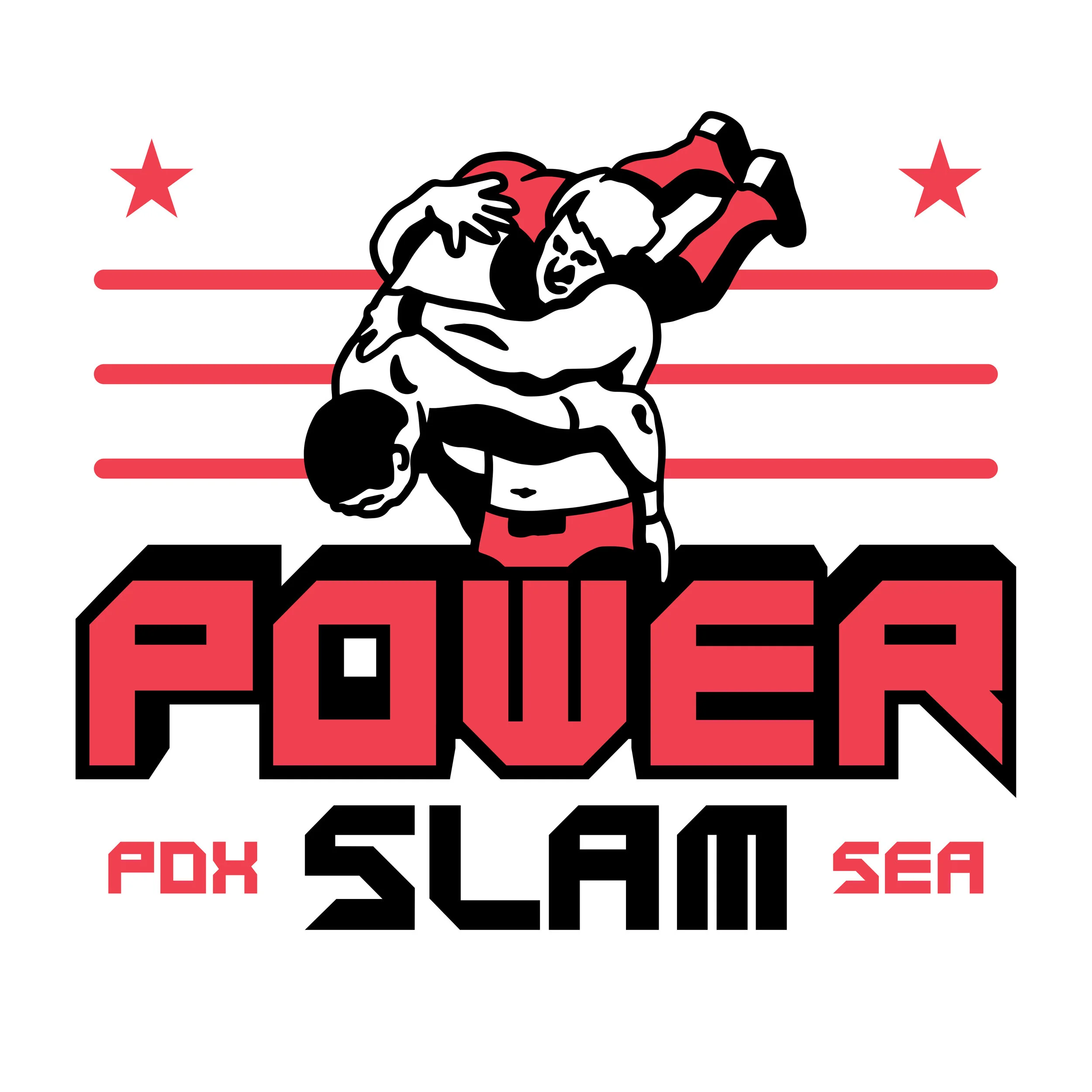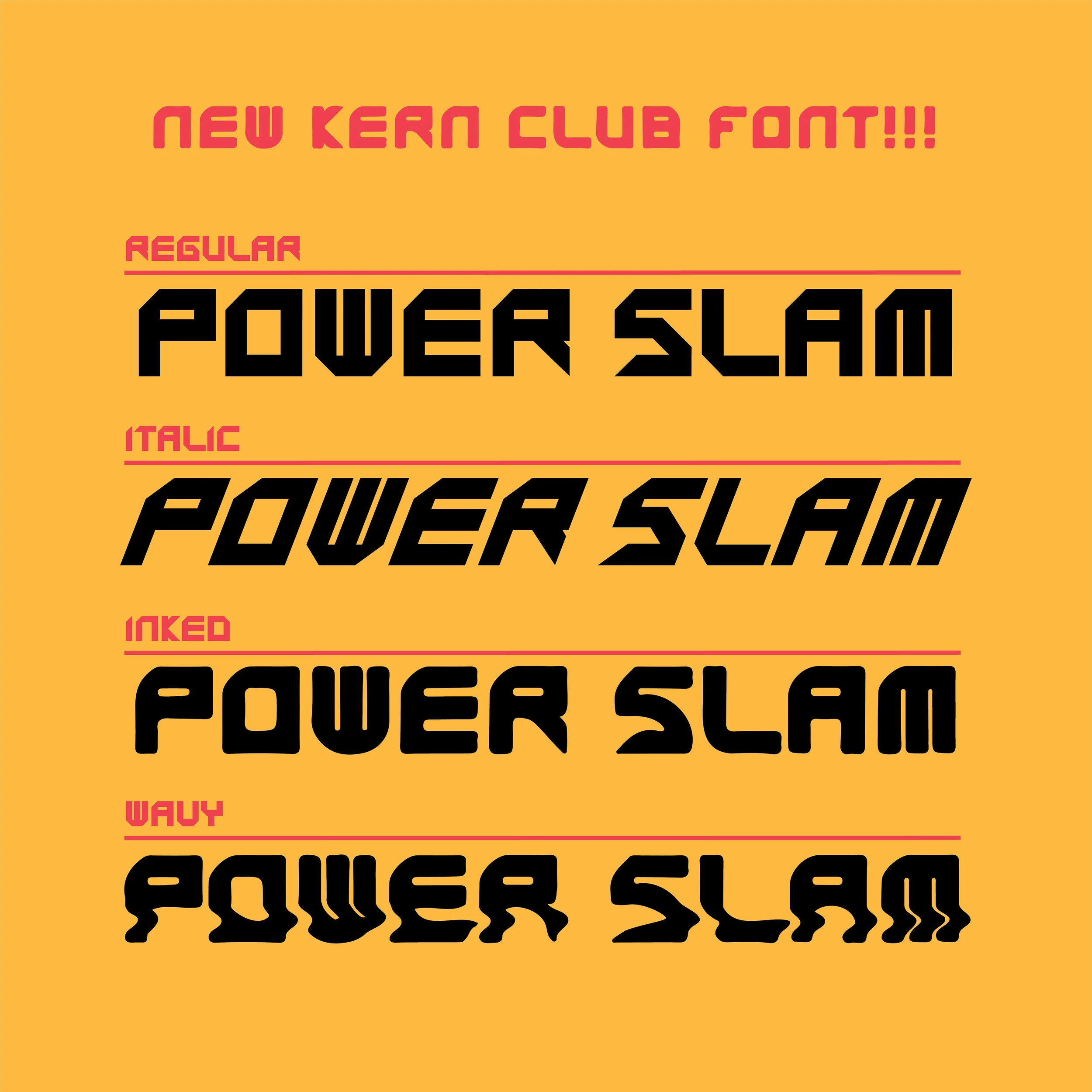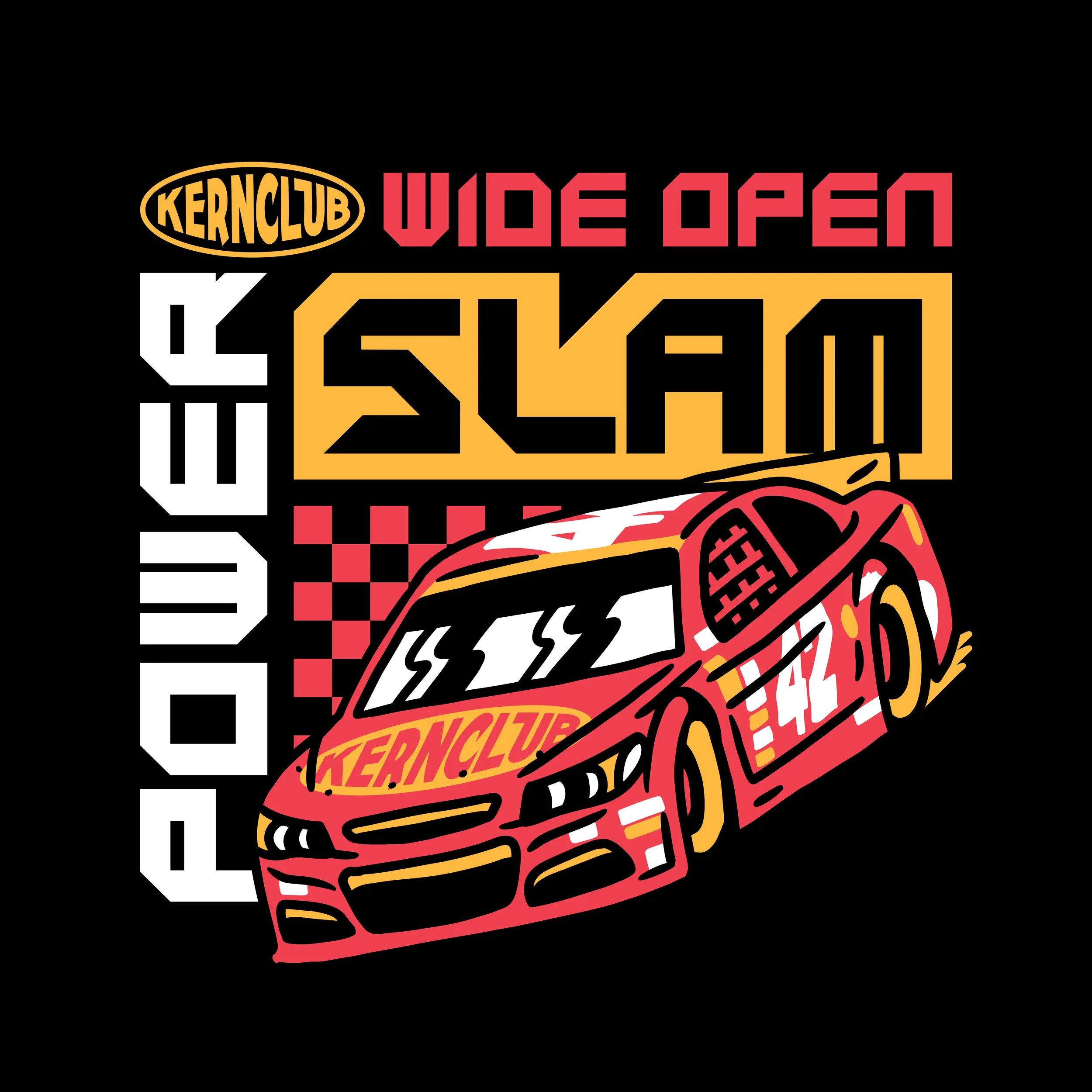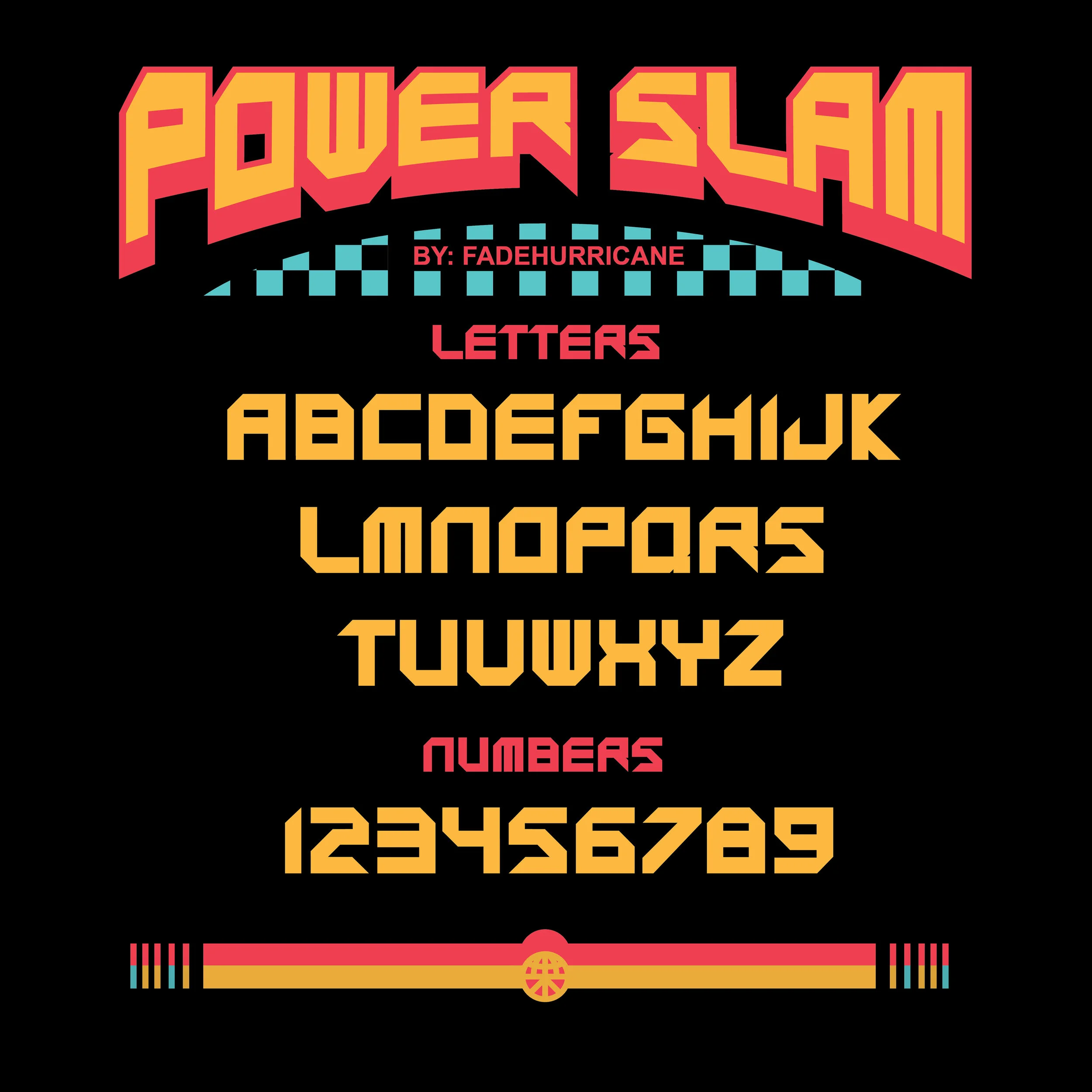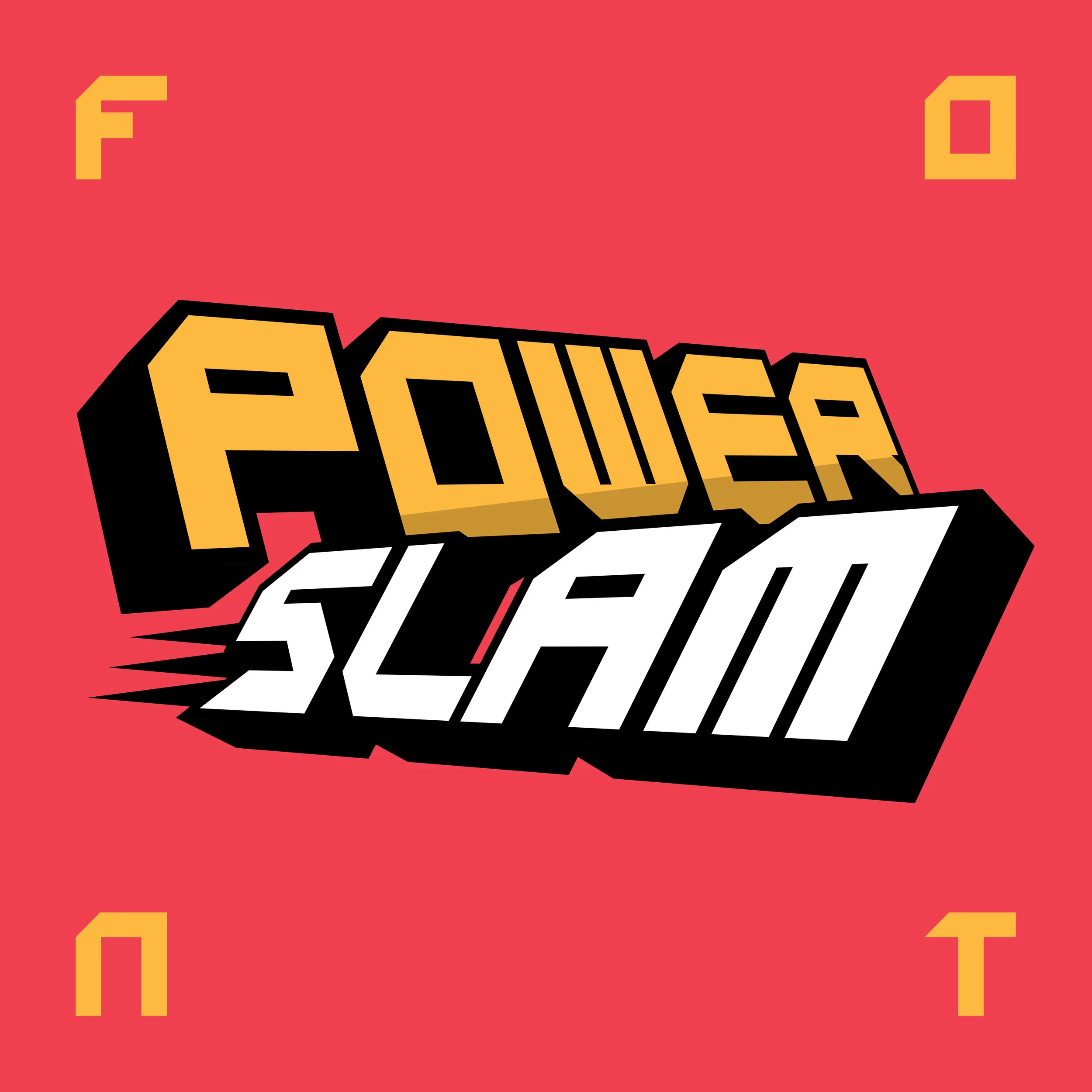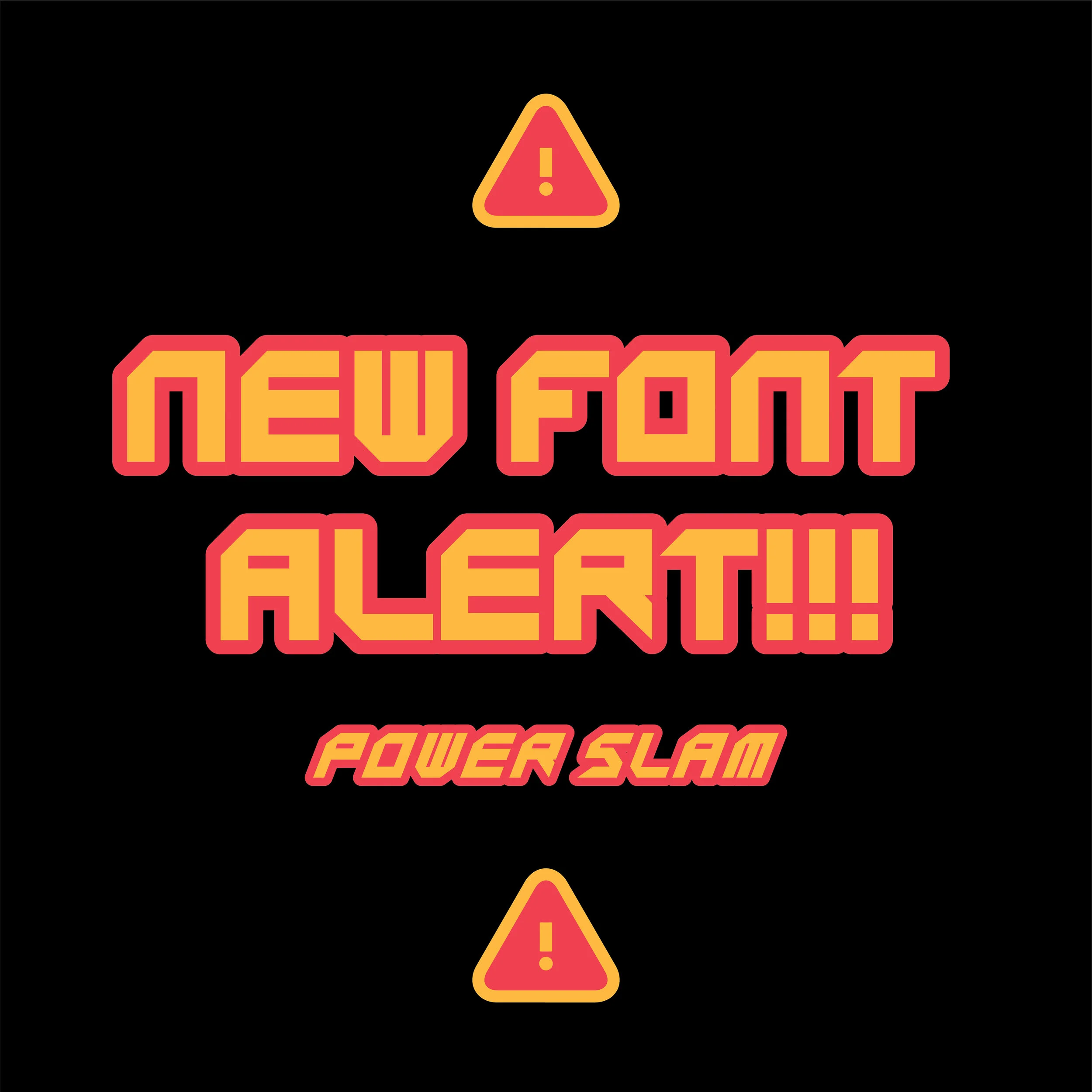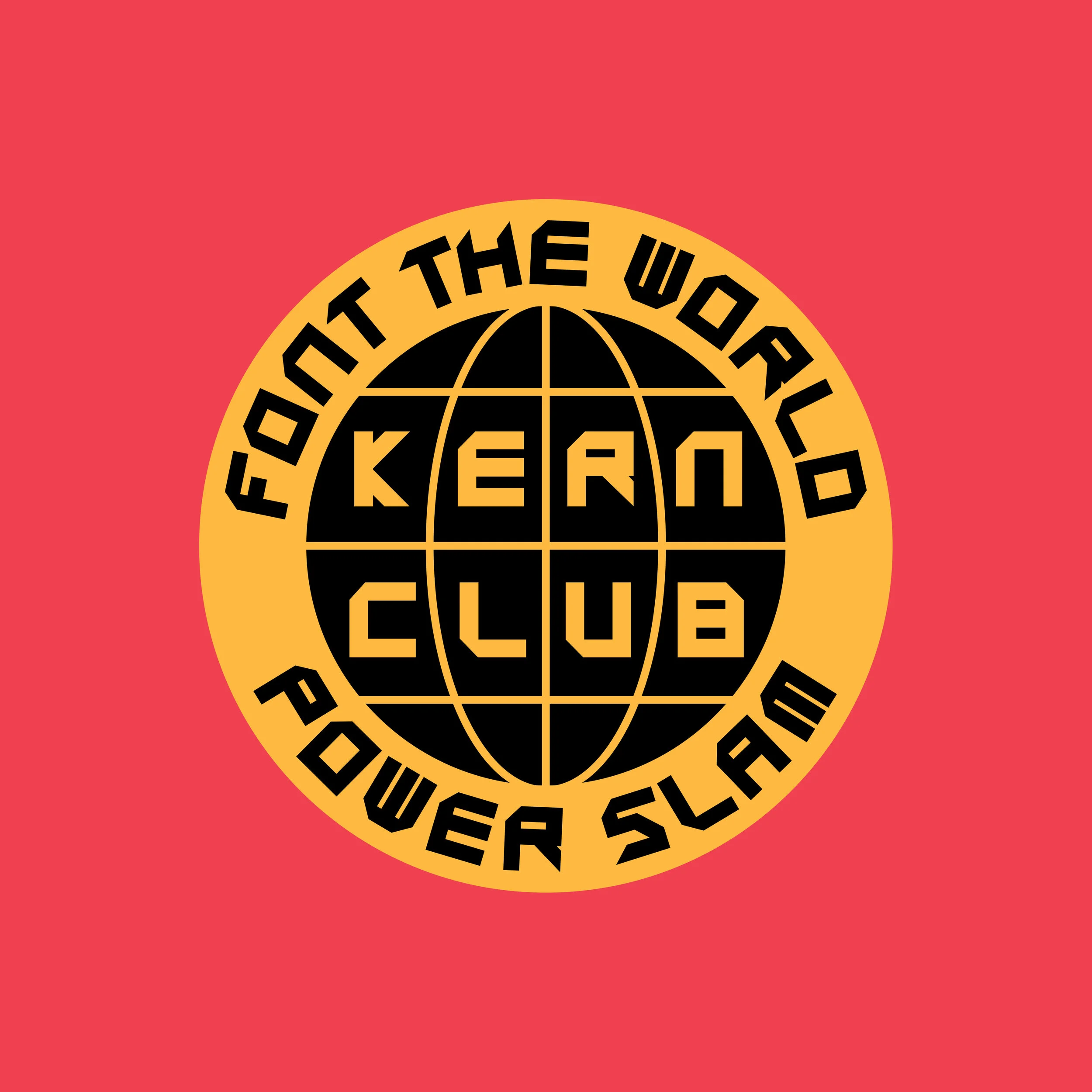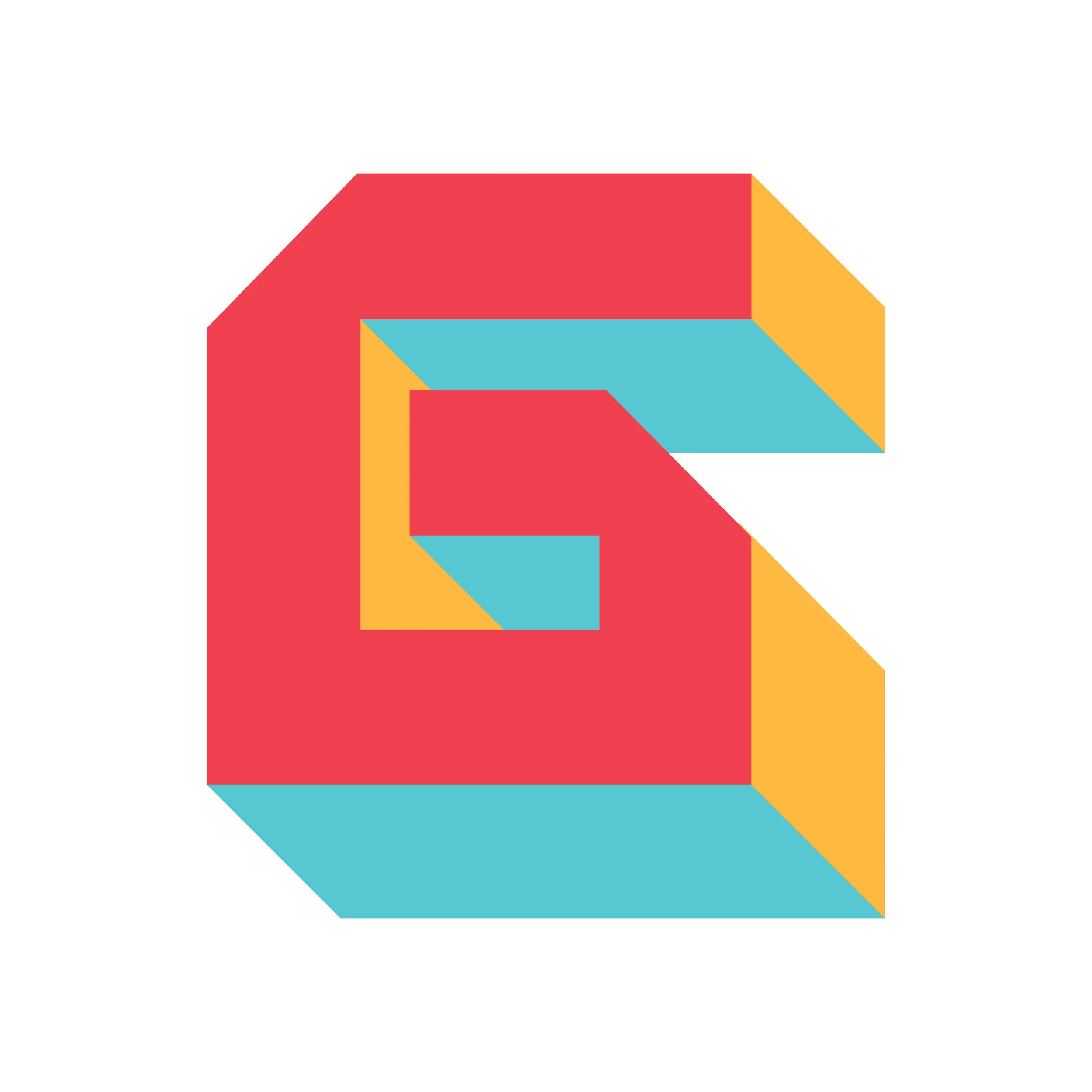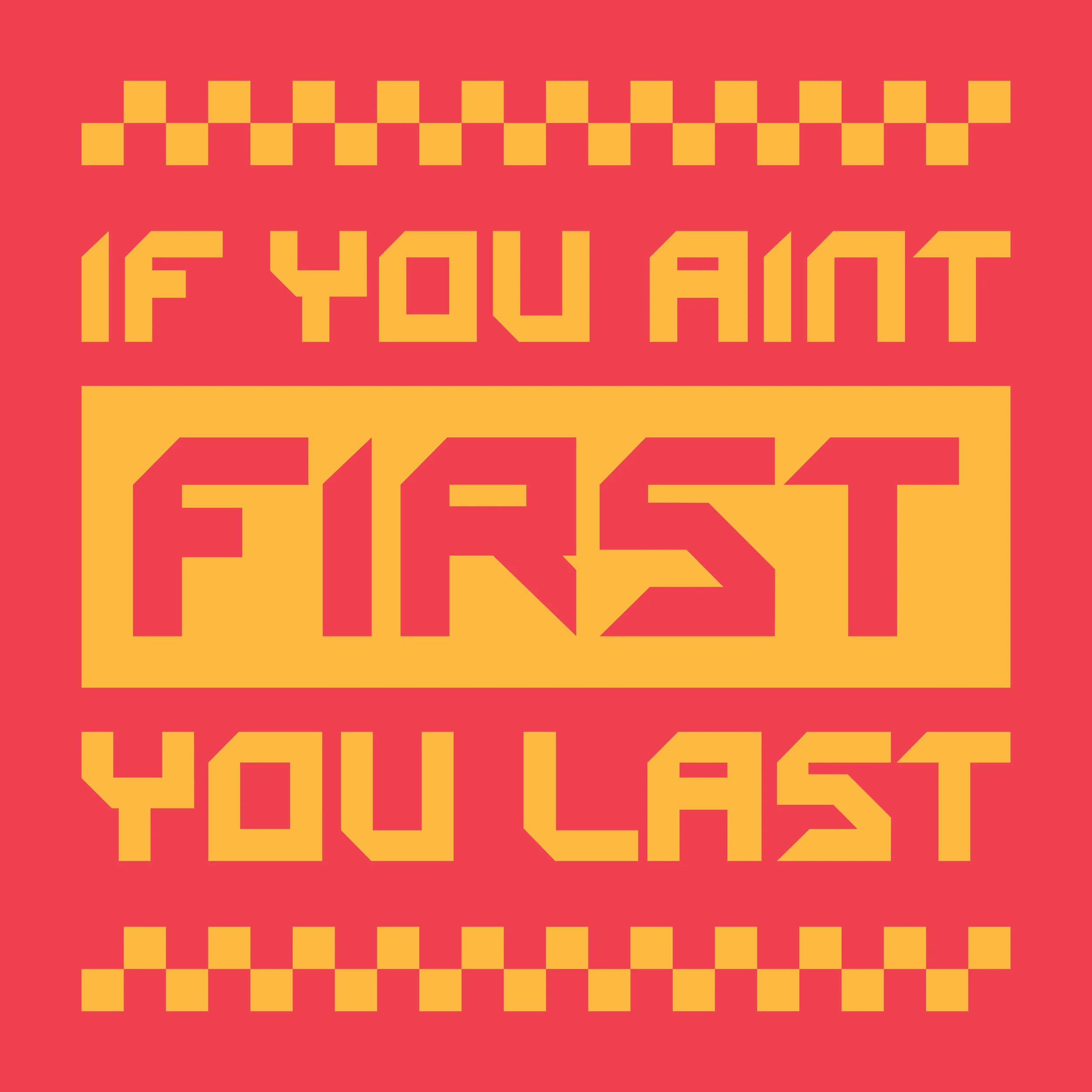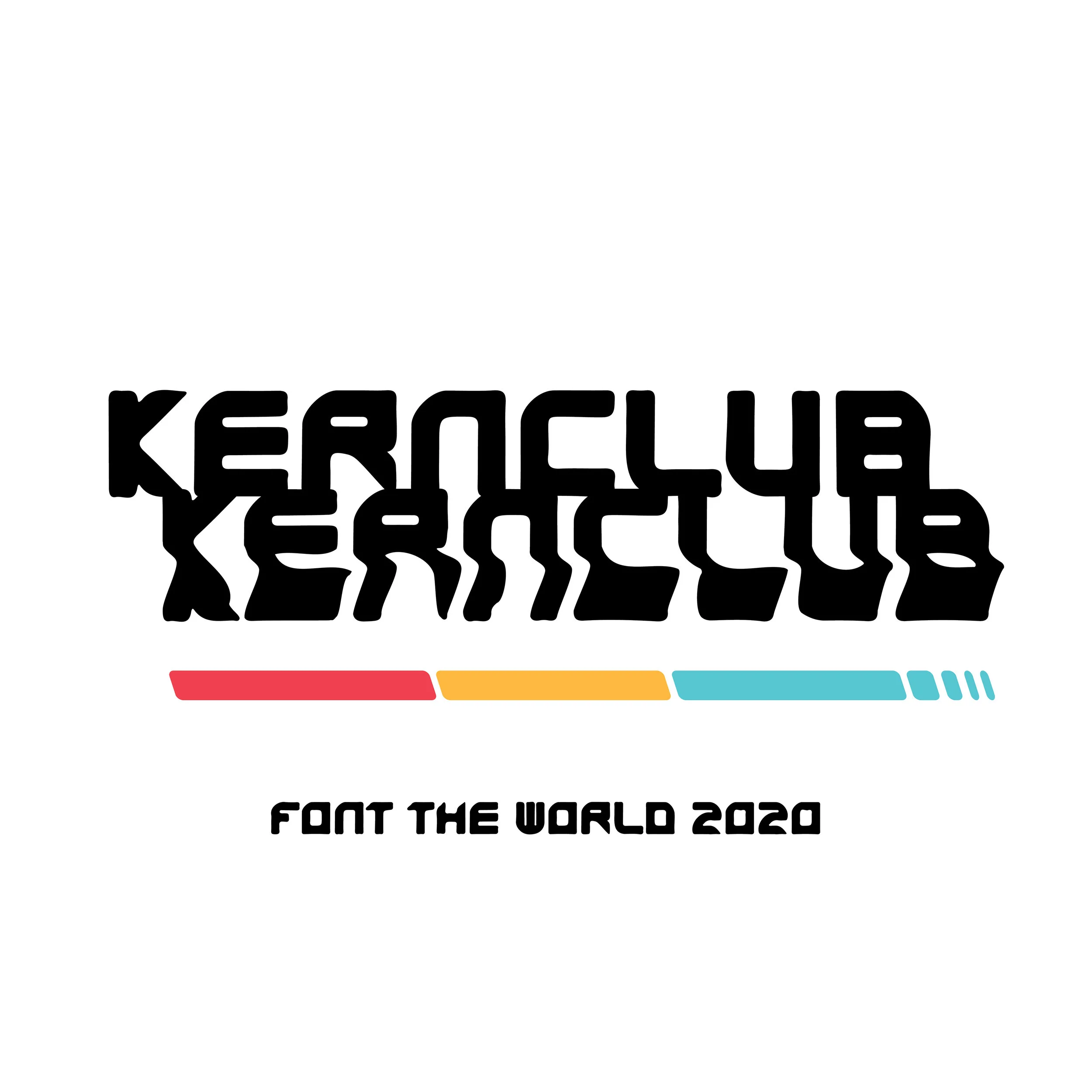
Power Slam Font
Cool font designed by Fade Hurricane :)
• Uppercase Character Set A-Z
• Includes regular, italics, wavy & inked versions (4 fonts)
• Numerals & Simple punctuation